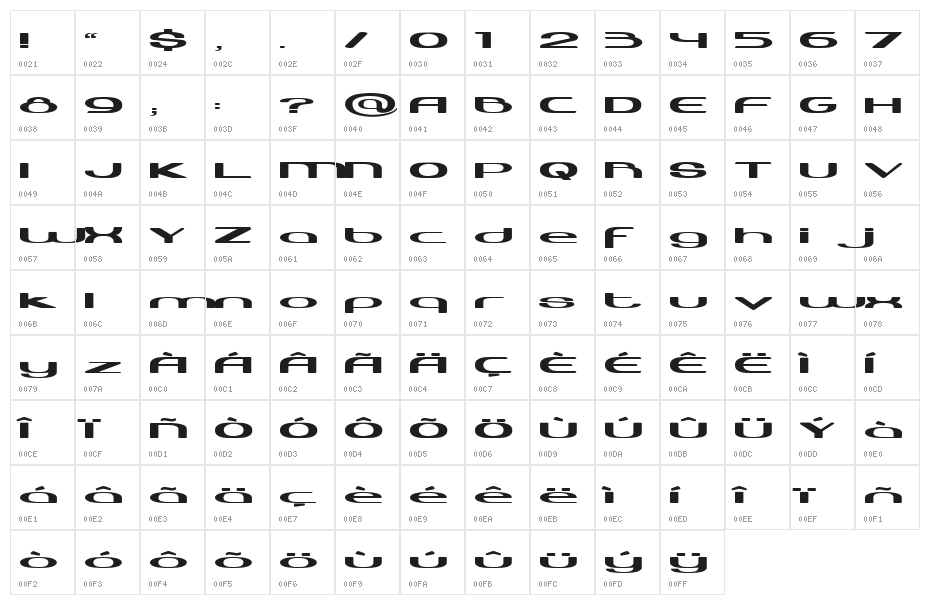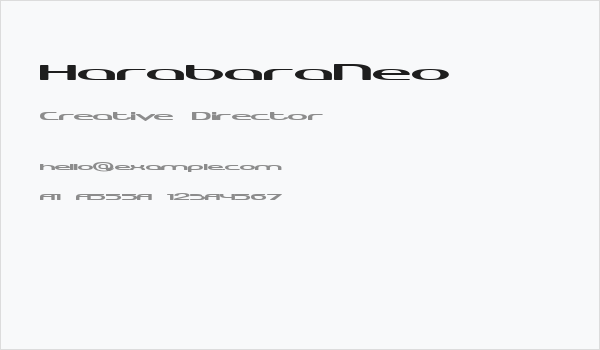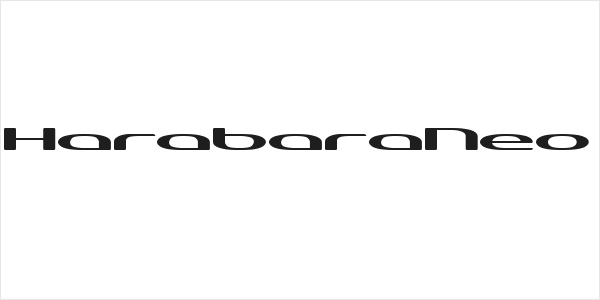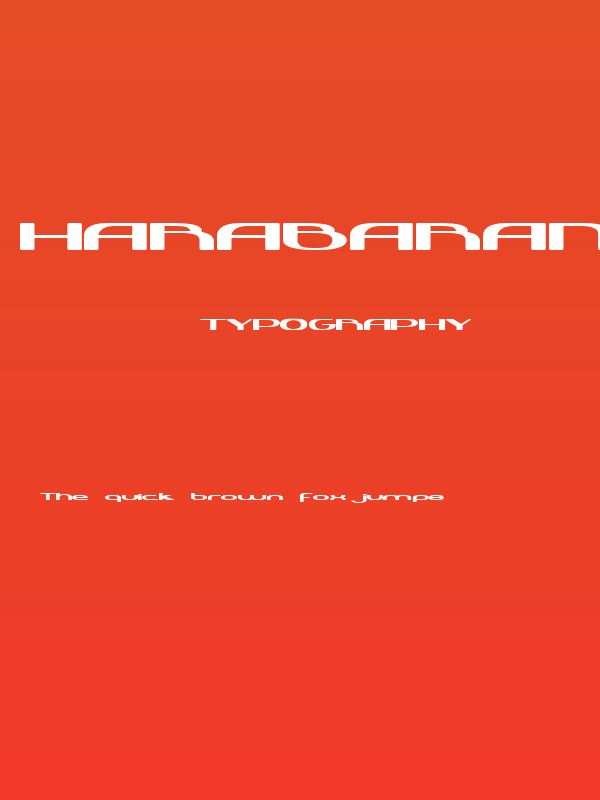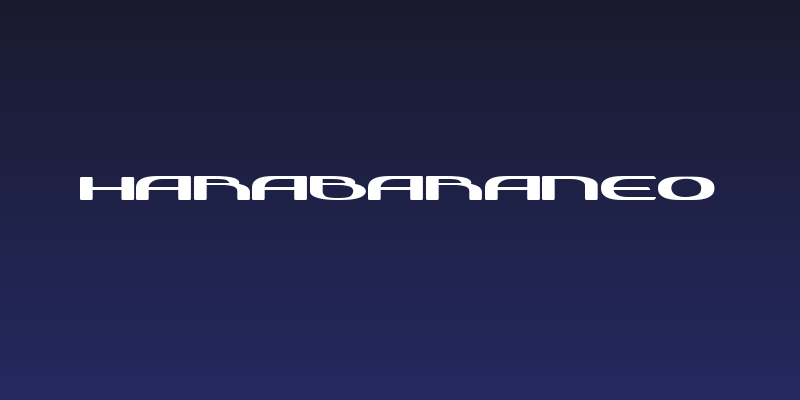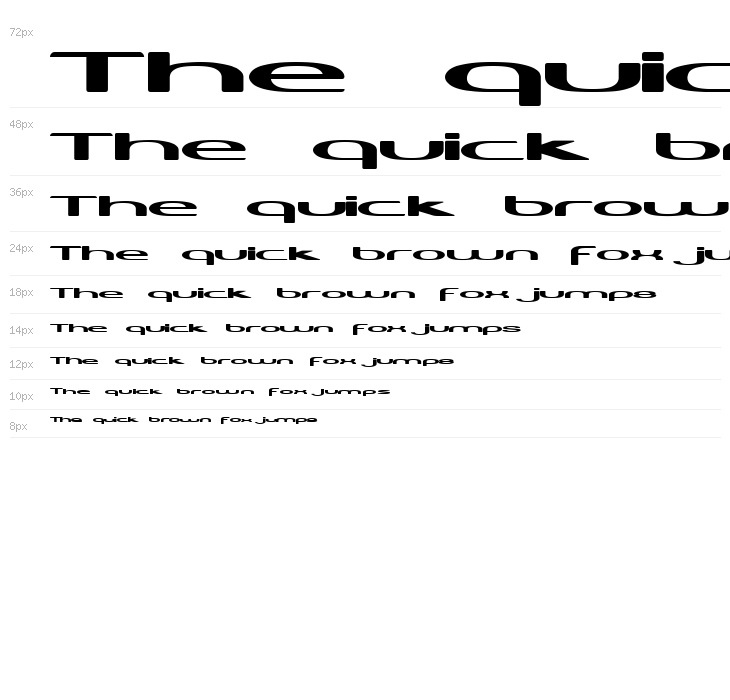
HarabaraNeo Font
HarabaraNeo Description
This font features a modern and sleek design with a futuristic appeal. The characters are crafted with smooth curves and a geometric structure, giving it a unique and contemporary look. The uppercase letters are bold and striking, while the lowercase letters maintain a consistent style with slightly softer edges. The numerals are clear and easy to read, complementing the overall aesthetic. Special characters are designed with the same attention to detail, ensuring uniformity across all glyphs. This font is ideal for projects that require a modern and innovative touch.
| Use Case | Headlines, Logos, Digital Interfaces |
| Proposed Projects | Ideal for tech branding, modern advertising, futuristic posters, and digital interfaces. |